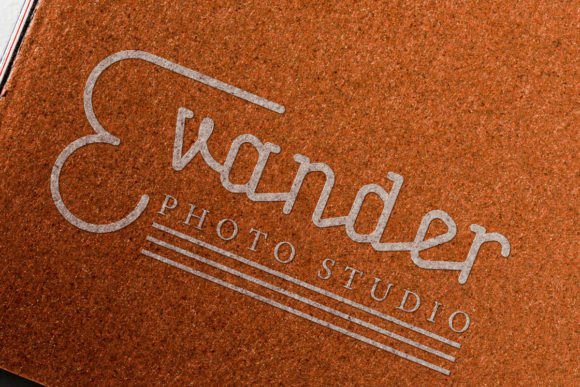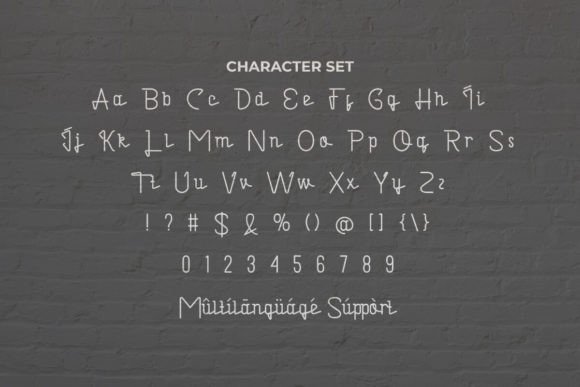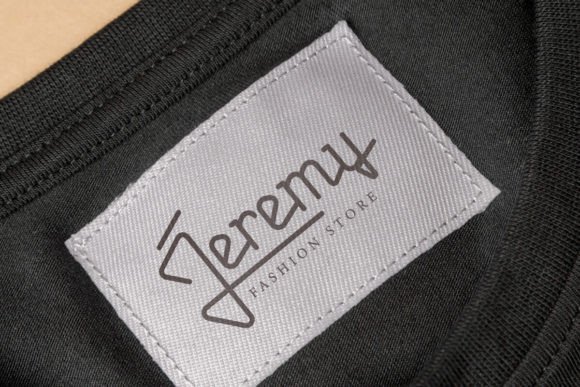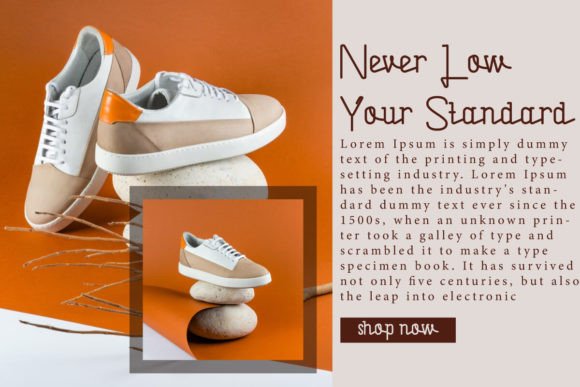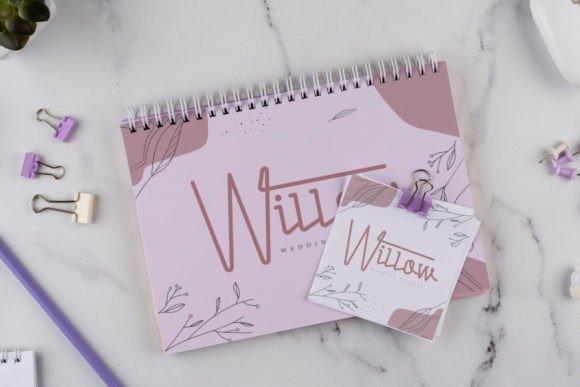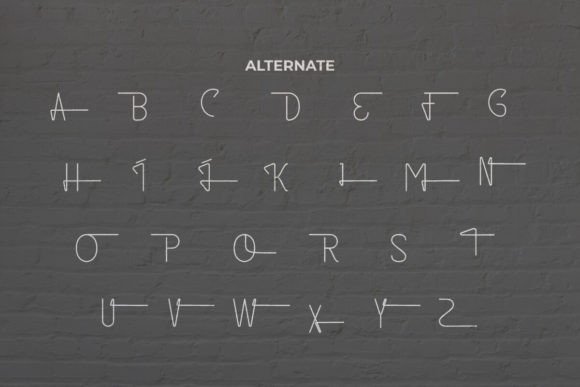
Introduction to Java Hangout Font
Java Hangout is a pen writing script font with a unique look that will give you a personal vibes to your project design.
The font is suitable for many industries, such as accessories, barber shop, boutique, fashion, interior design, photo studio, printing, publishing, wedding or event organizer, and more .